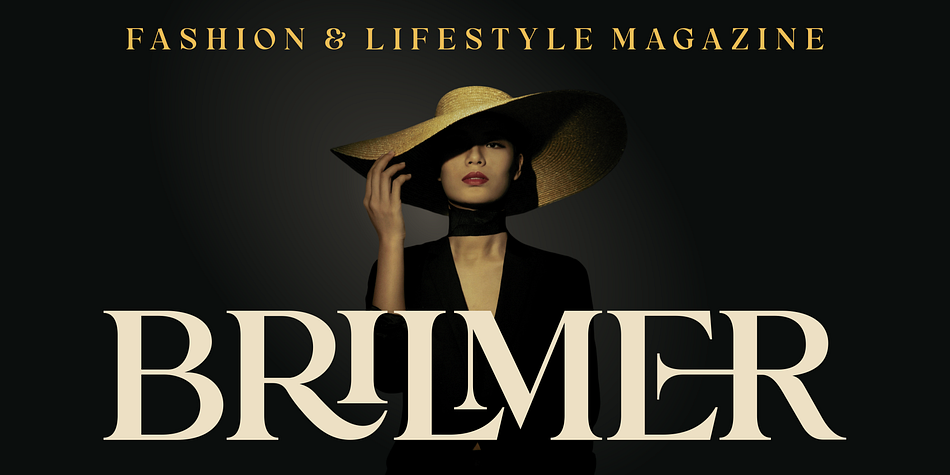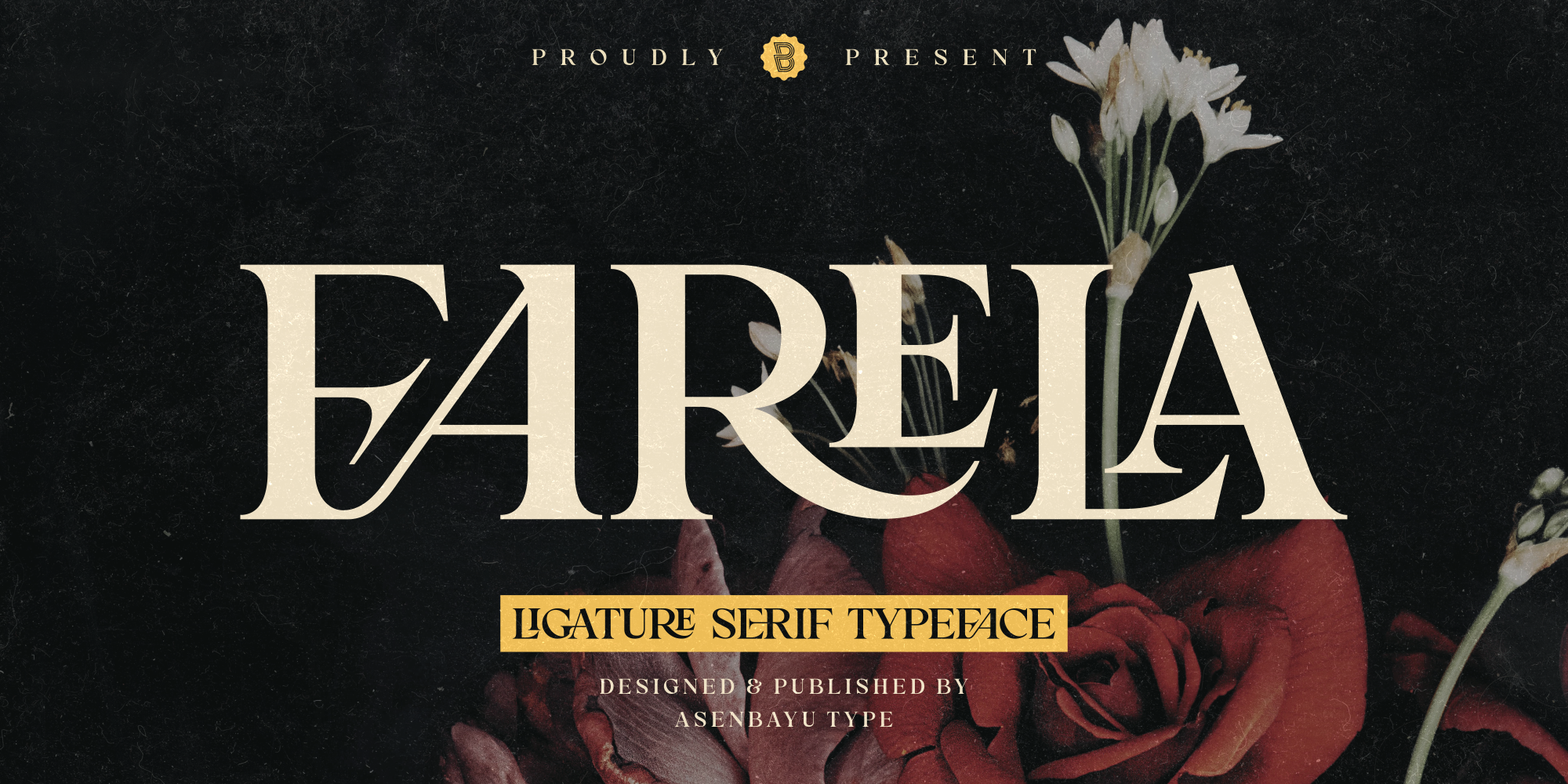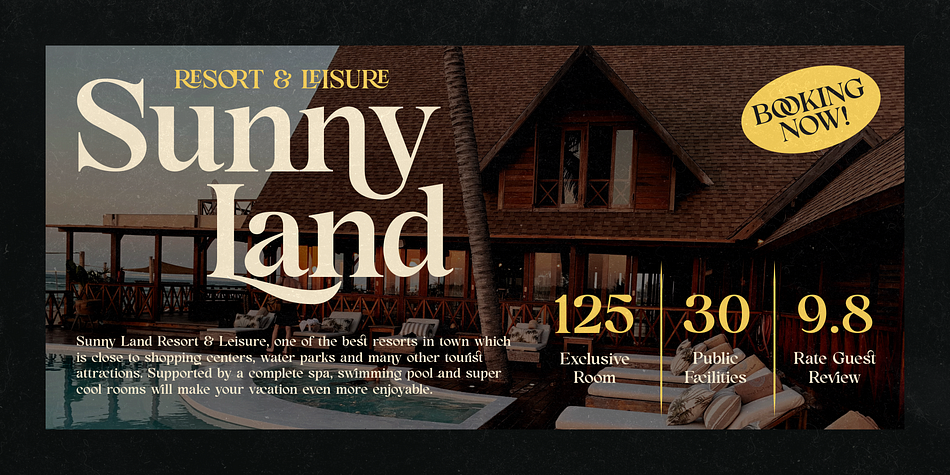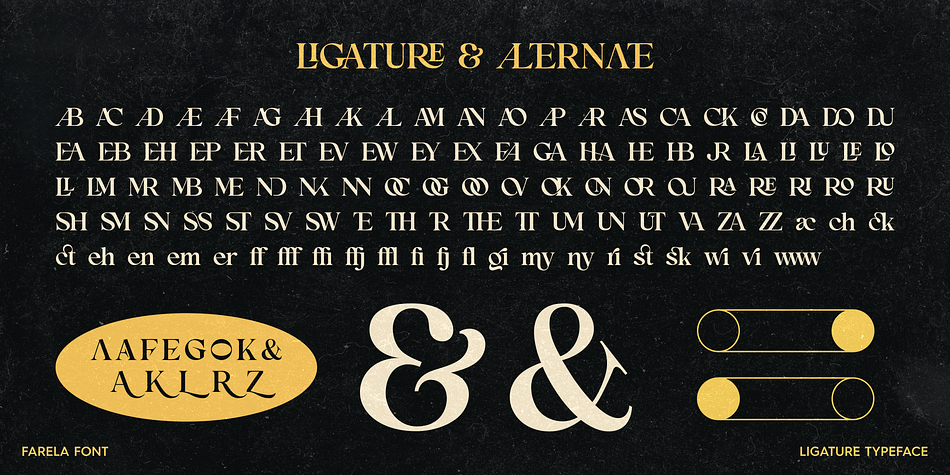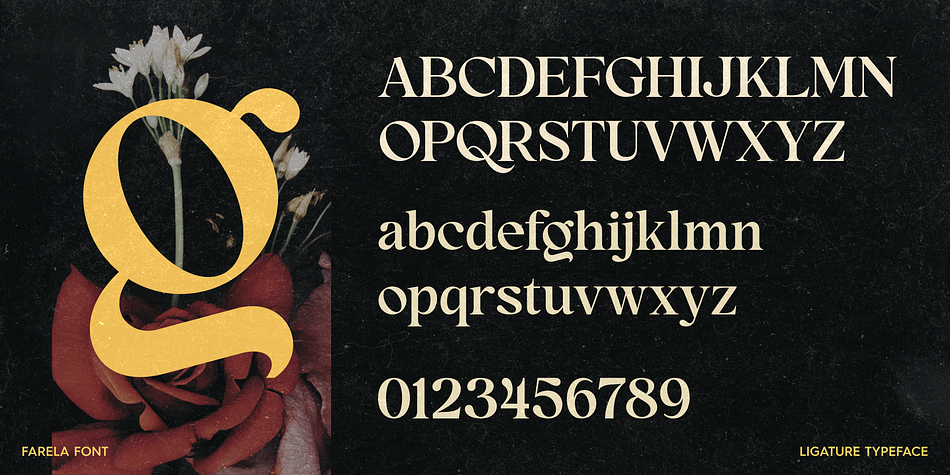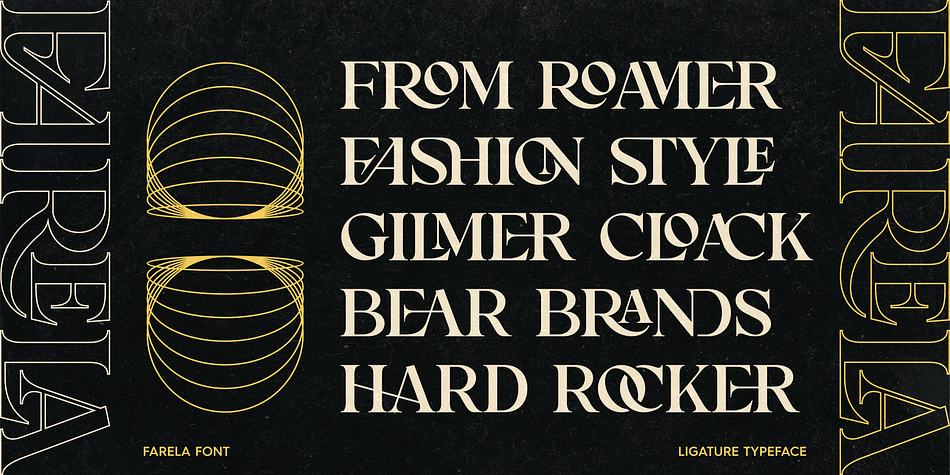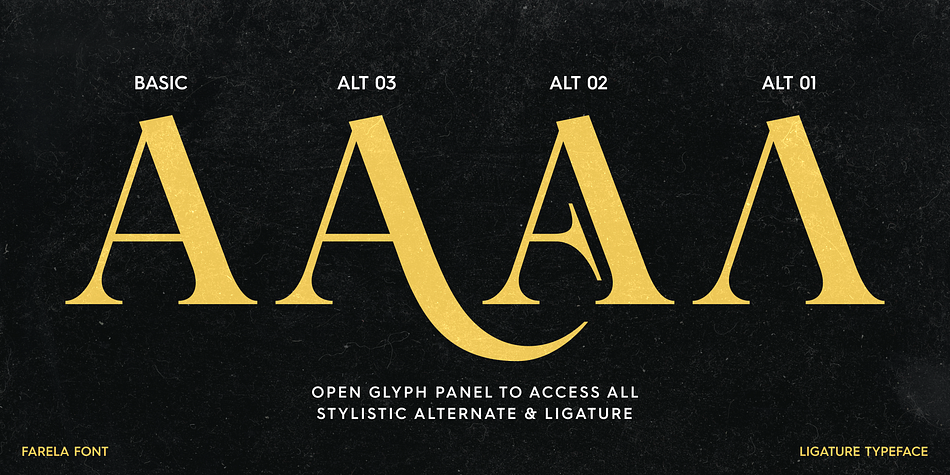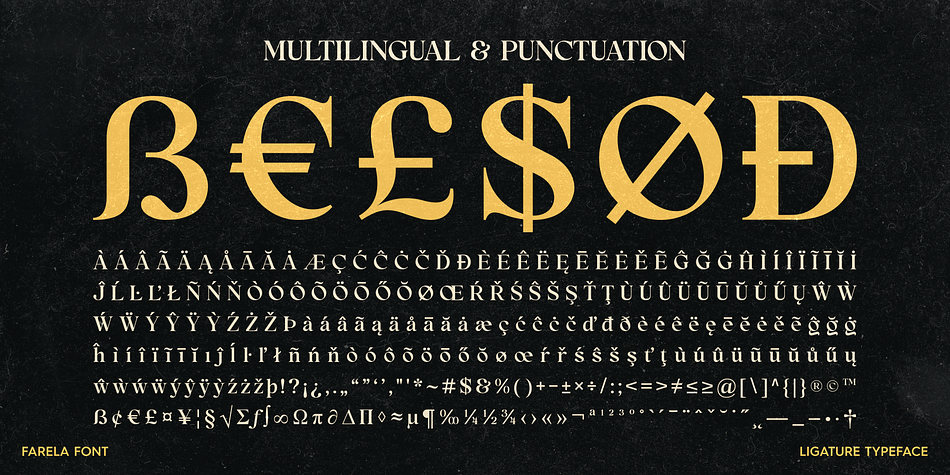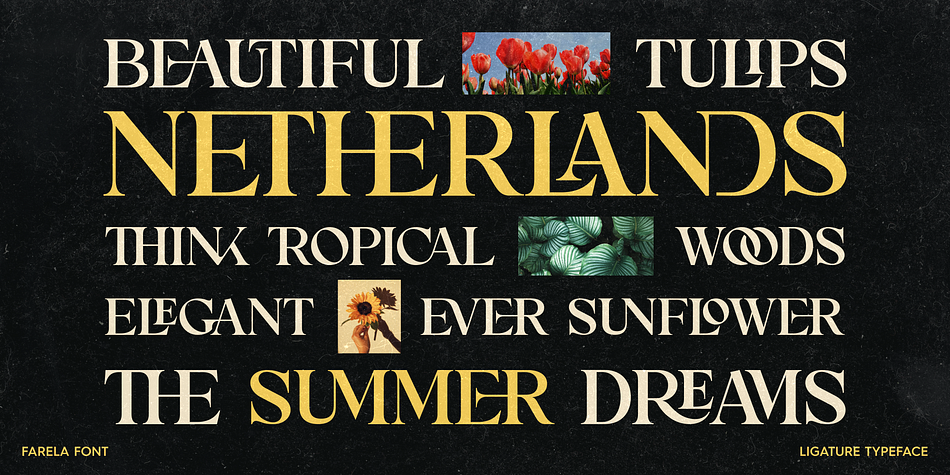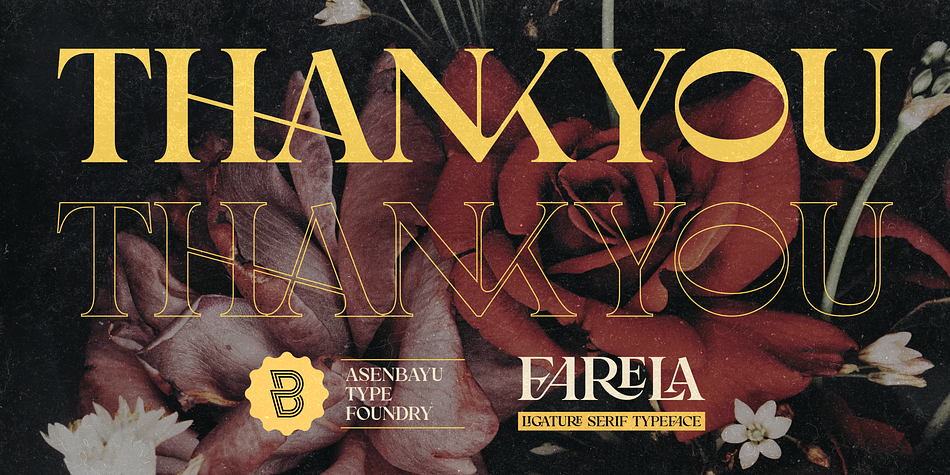
FARELA
FARELA is a serif font family published by Asenbayu.
The Farela font is a serif ligature font that has an attractive elegant appearance. You can use this font in vintage, classic, and retro designs. This font gives a beautiful, classy and luxurious feel to your designs. This font is perfect for projects such as logos, branding, fashion, magazines, labels, posters, album covers and many more.
Font Features:
- Kerning
- Alternative Style and Ligature
- Uppercase and Lowercase Letters
- Numeral, Punctuation and Multilingual Support